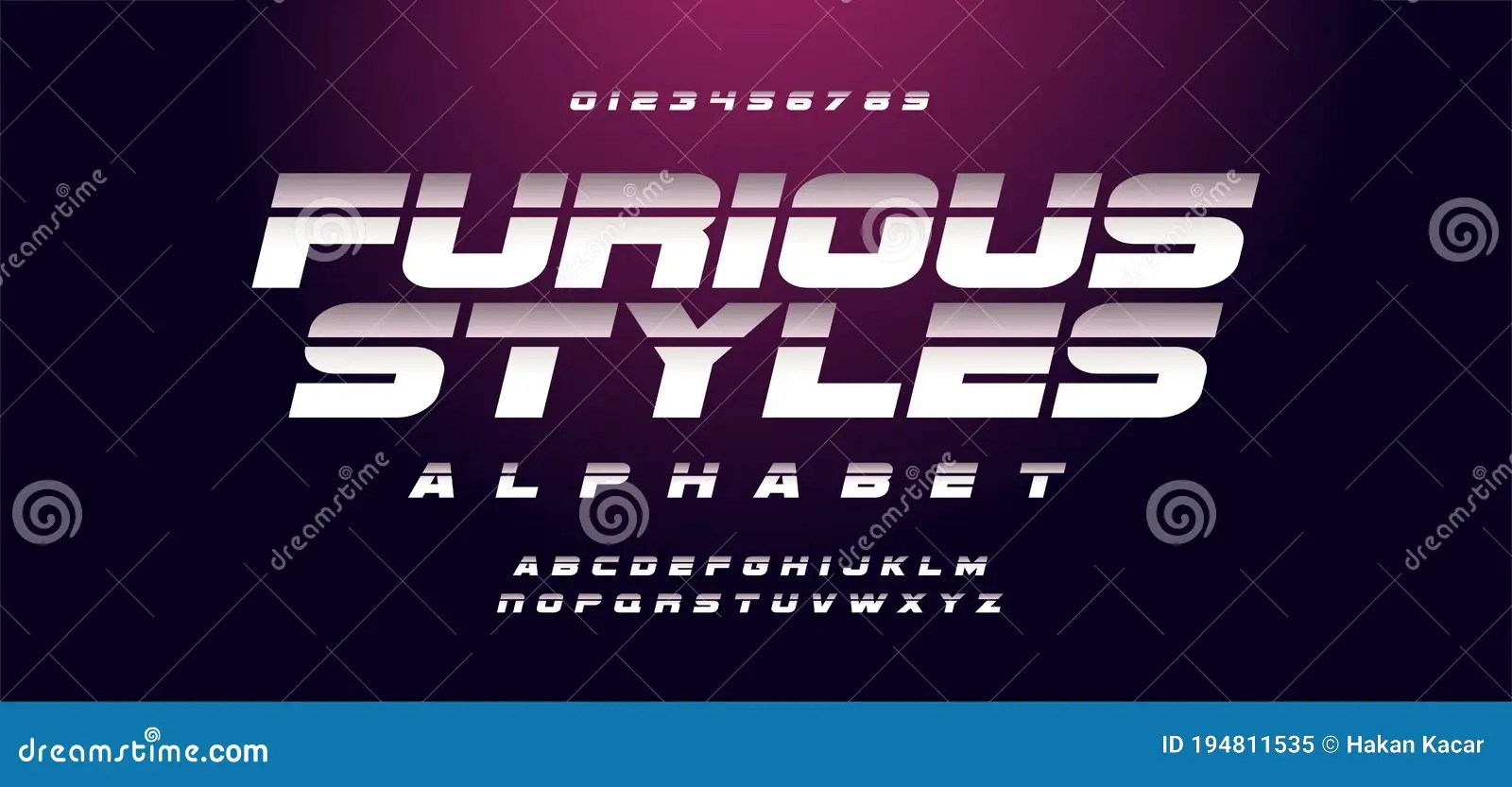
Fast And Furious Font Online. The fast and the furious is a series of action films that center on the illegal street racing and heists. Order description “genre” is a french word that refers to a kind, type, or category of a particular phenomenon or thing.
We have found 1 fonts matching your search for a fast and furious 8 font. If you don’t feel like buying this font, it’s ok. This fonts is designed by eduarvày tunni.
Fast Furious Is A Bold, Strong Lettered Display Font.
Order description “genre” is a french word that refers to a kind, type, or category of a particular phenomenon or thing. Thick lettered and aggressive, this font makes your designs look great. Oct 20, 2011 at 18:16.
We’ve Gathered A Free Font Similar To The Fast And.
“Antique Olive Nord D Italic” Is The Font Used In The Movie The Fast And The Furious.
If you don’t feel lượt thích buying this font, it’s ok. The fast and the furious 6 movie font. The fast and the furious font here refers to the font used in the posters of the fast and the furious, which is a series of action movies that center on the illegal.